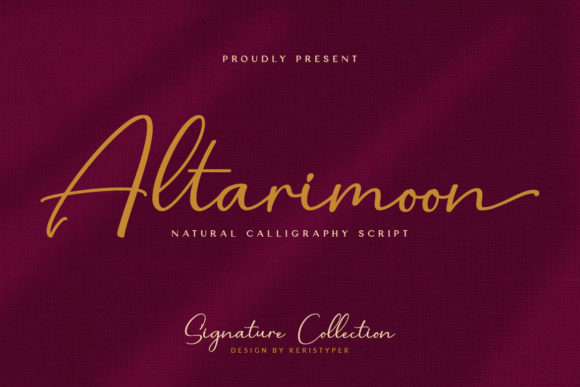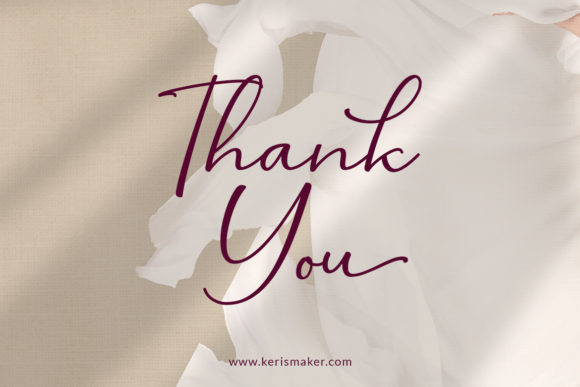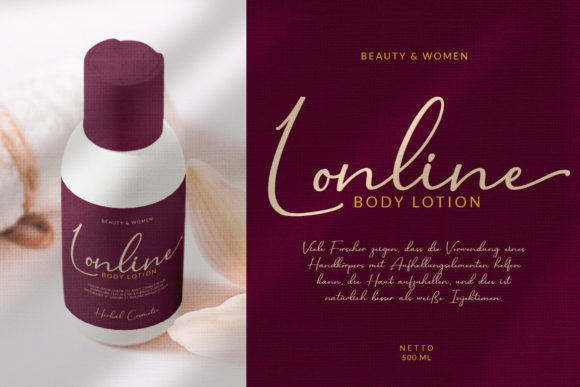
About Altarimoon Font
Altarimoon is a free-flowing, modern script font. With a spontaneous feel and lots of alternates, it’s a perfect typeface for your branding projects or anywhere you need a fresh look.